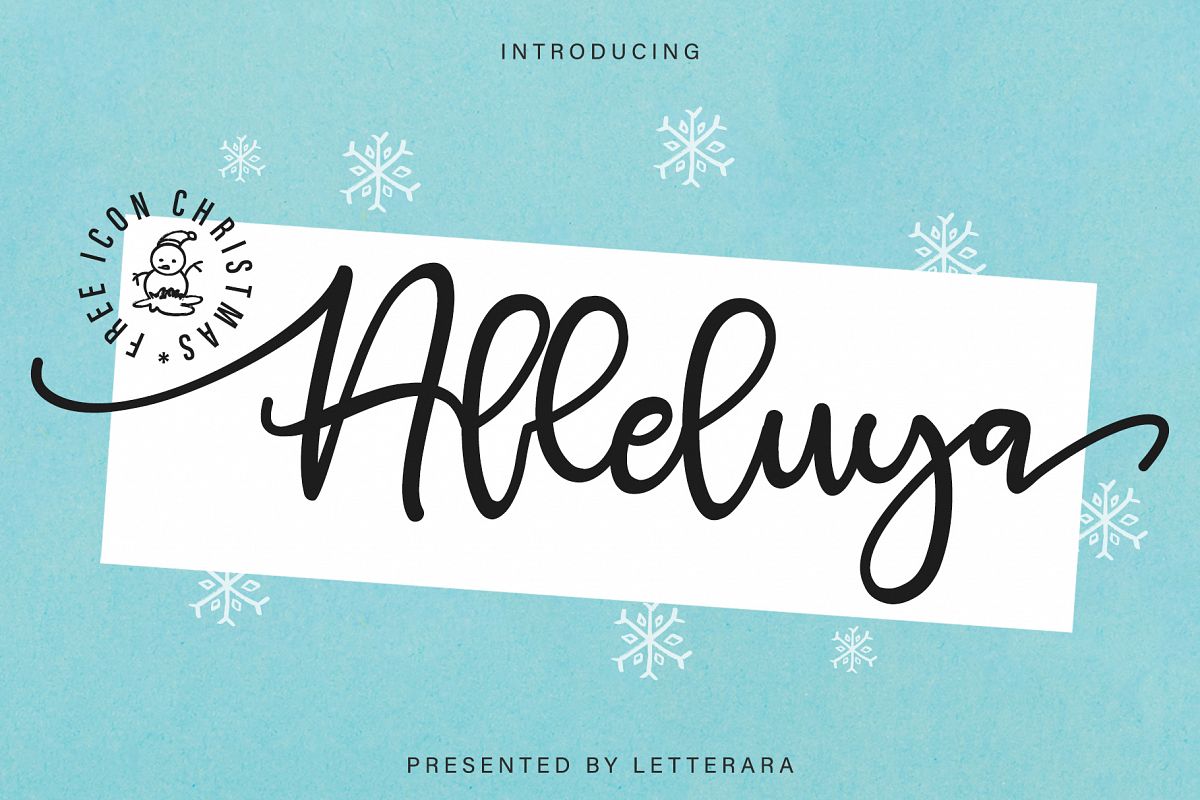
Alleluya
Alleluya is a beautiful font
family, The several styles work perfect together and will help you make your
project more complete and bright.
It has decorative characters and a
dancing lineage which will look perfect on invitations, greeting cards, branding
materials, business cards, quotes, posters and much more!